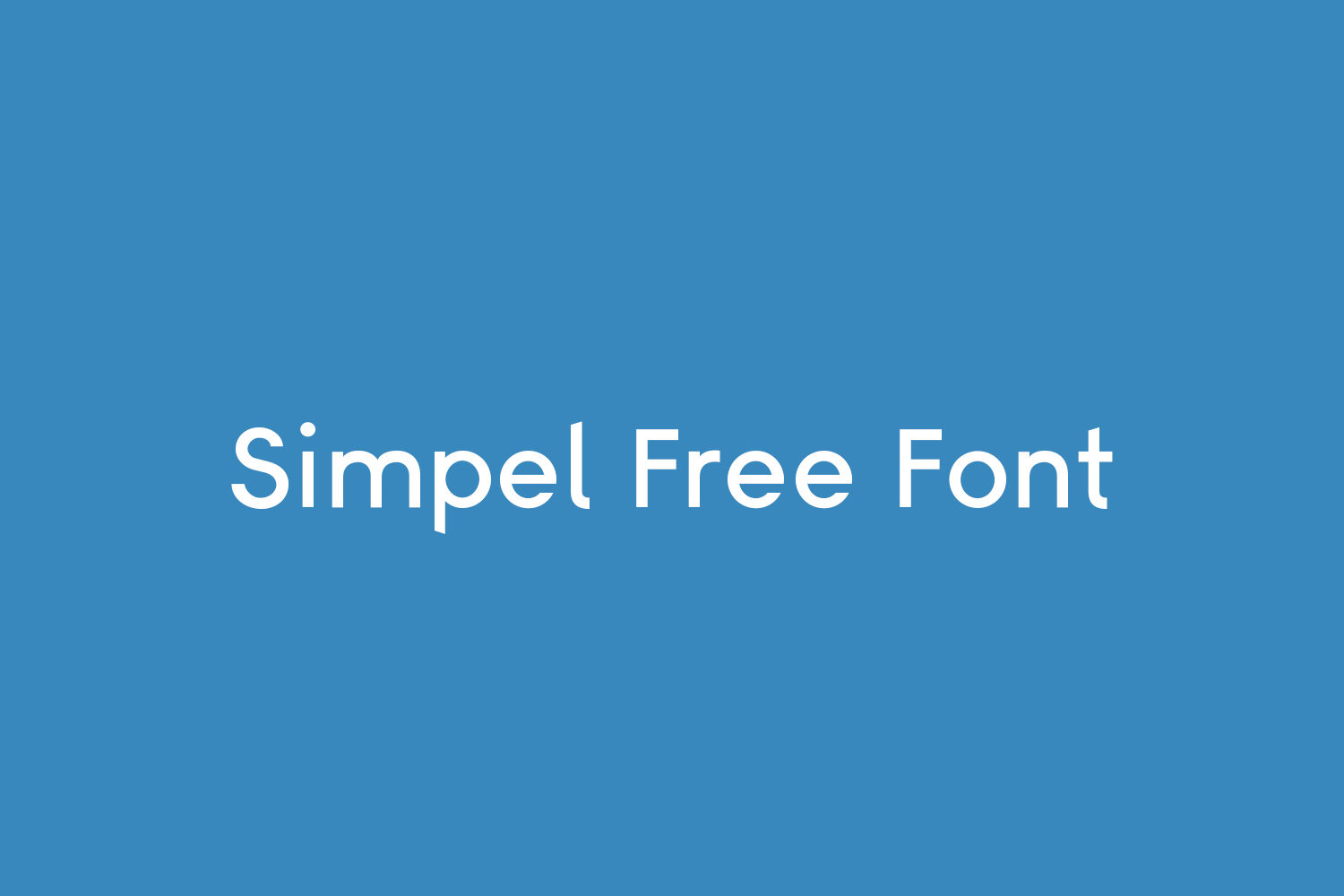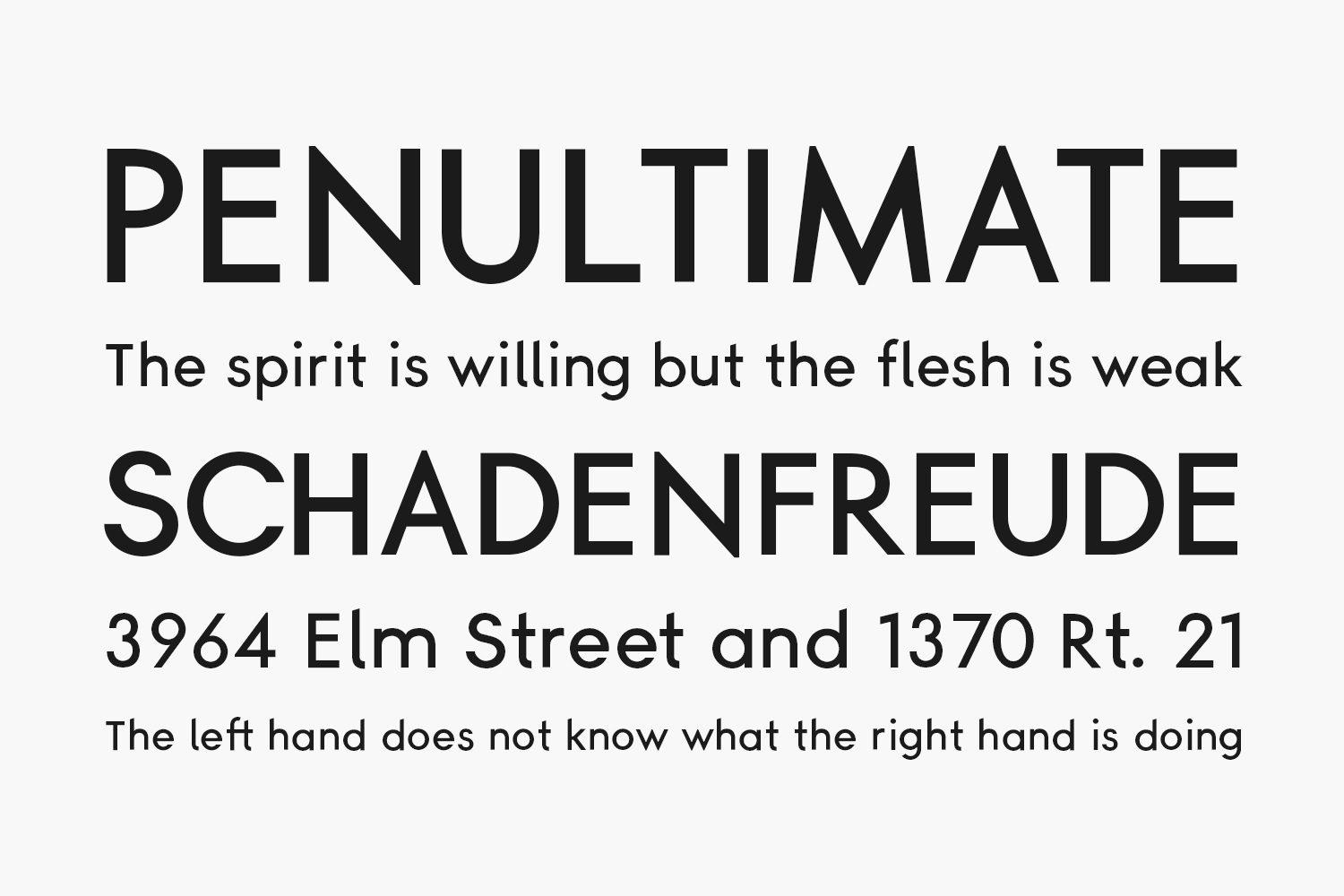
Simpel Free Font is a contemporary, geometric, low-contrast sans-serif typeface. It has an extended Latin support, including Western, Eastern, and South-eastern European languages.
It’s the result of the challange I set to myself – to design a typeface in one month. I’ve never done it before so it was more for my own joy & learning than anything else.